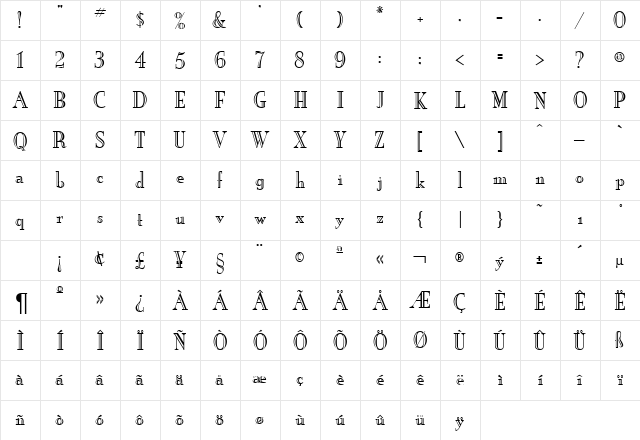
NewOrleansEngraved DB Regular
Design Context for NewOrleansEngraved DB Typeface
NewOrleansEngraved DB brings ornamental detail and strong personality to headlines and identities, where visual impact matters more than quiet functionality.
Font Pairing: Pair with a clean neutral sans-serif for body copy to let NewOrleansEngraved DB's character lead without overwhelming the composition.
Pro Tip: Treat NewOrleansEngraved DB as the centrepiece of your typographic hierarchy. One strong heading set in a decorative face can carry an entire layout.